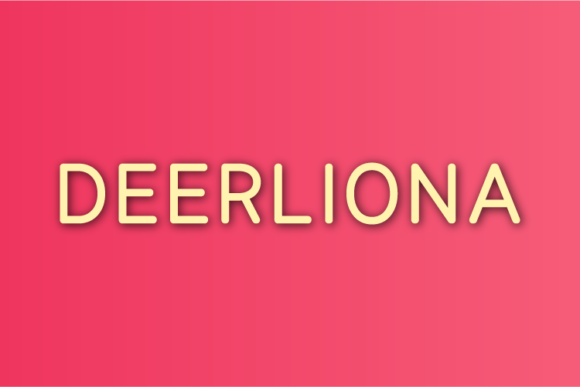
Behold, the Deerliona font, an exclusive sans serif typeface bound to ignite your creative spirit. Crafted by the talented A Christie, this font exudes simplicity and elegance. Brace yourself to witness your designs transform into masterpieces as you embrace the Deerliona experience.
Journey through a world of endless possibilities, where the Deerliona font becomes your trusty companion. Its clean lines and understated charm lend themselves effortlessly to a myriad of projects, adding a touch of sophistication to every endeavor. Whether you're designing Christmas cards, crafting eye-catching logos, or composing captivating social media posts, Deerliona will elevate your work to new heights.
Imagine your Christmas letters adorned with the enchanting Deerliona font, evoking a sense of timeless joy and wonder. Let your words dance across the page, carrying tidings of comfort and cheer. The Deerliona font will capture the essence of the festive season, transforming your letters into cherished keepsakes.
Delve into the world of branding and logo design, where the Deerliona font reigns supreme. Its versatility allows it to seamlessly adapt to a wide range of industries, from fashion to technology. Picture your logo, rendered in the sleek lines of Deerliona, commanding attention and leaving a lasting impression. Experience the power of a font that speaks volumes without uttering a single word.
Social media, the realm where creativity knows no bounds, awaits your arrival. Unleash the Deerliona font upon your social media posts, stories, and reels, and witness the engagement skyrocket. Its timeless design will complement any visual content, amplifying your message and captivating your audience. Let Deerliona be your secret weapon in the battle for social media dominance.
The Deerliona font is more than just a collection of characters; it's a gateway to a world of creativity and self-expression. Its versatility and charm will ignite your imagination and empower you to bring your ideas to life. Embrace the Deerliona experience and embark on a creative journey like no other.